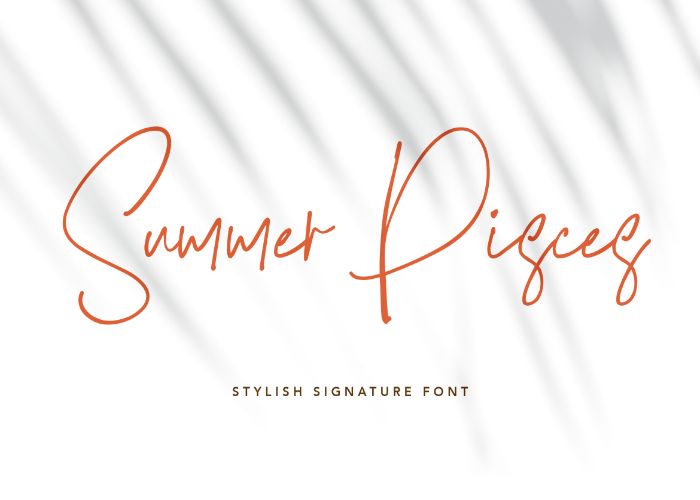
Summer Pisces Font – Freebie
Summer Pisces is a stylish commercial use font. It features smooth lines, gorgeous glyphs, and stunning styles.
This font is perfect for a signature, wedding invitation, social media post, advertisement, quoted text, photography, fashion, boutique, and any beauty project. It’s also a perfect fit for background images or text overlays.
The most exciting part is that this font comes with multi-language support. Whoa!